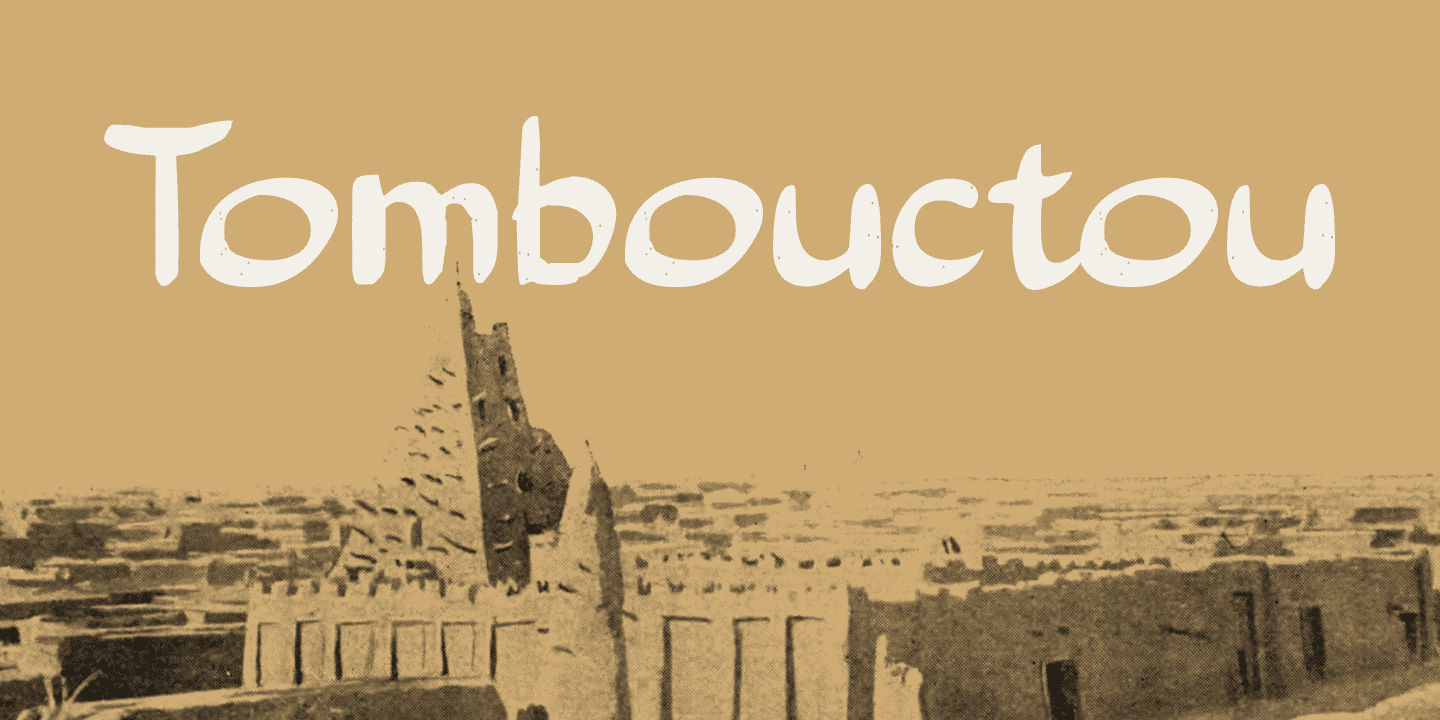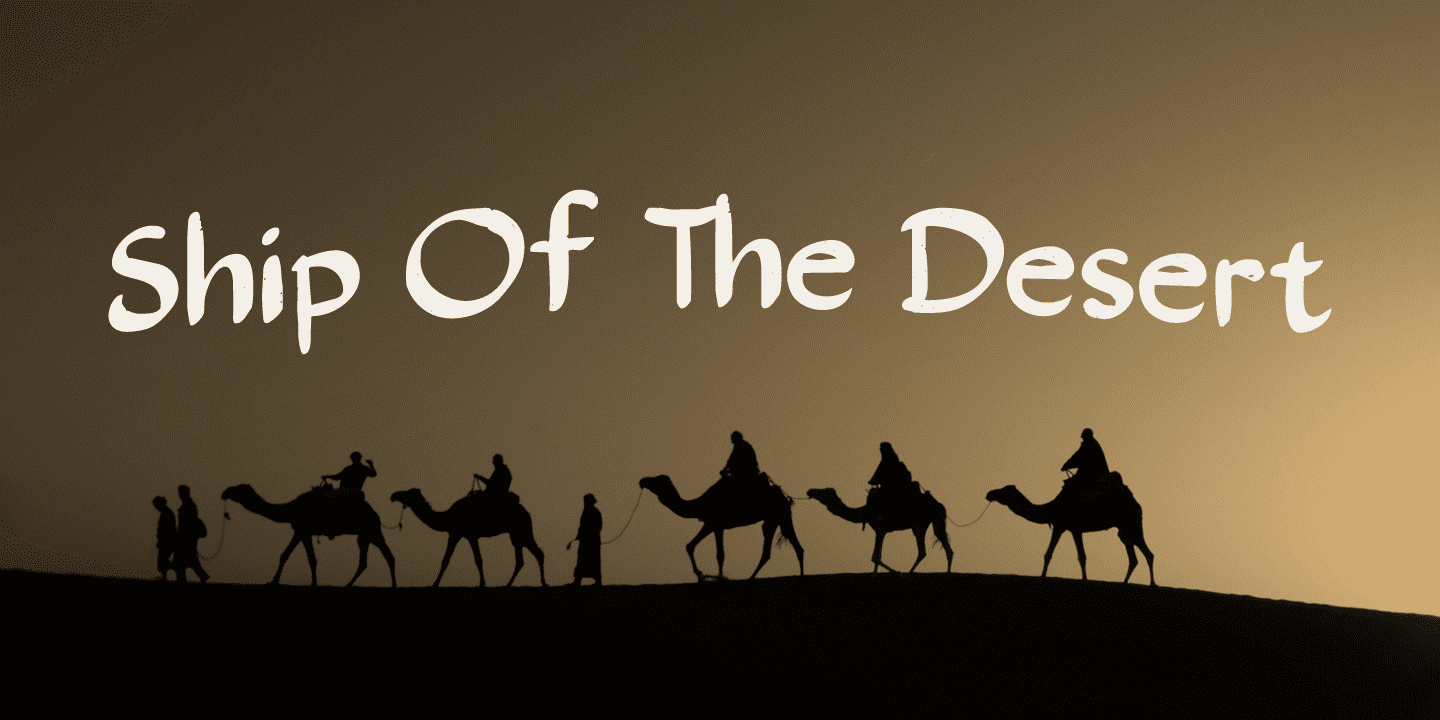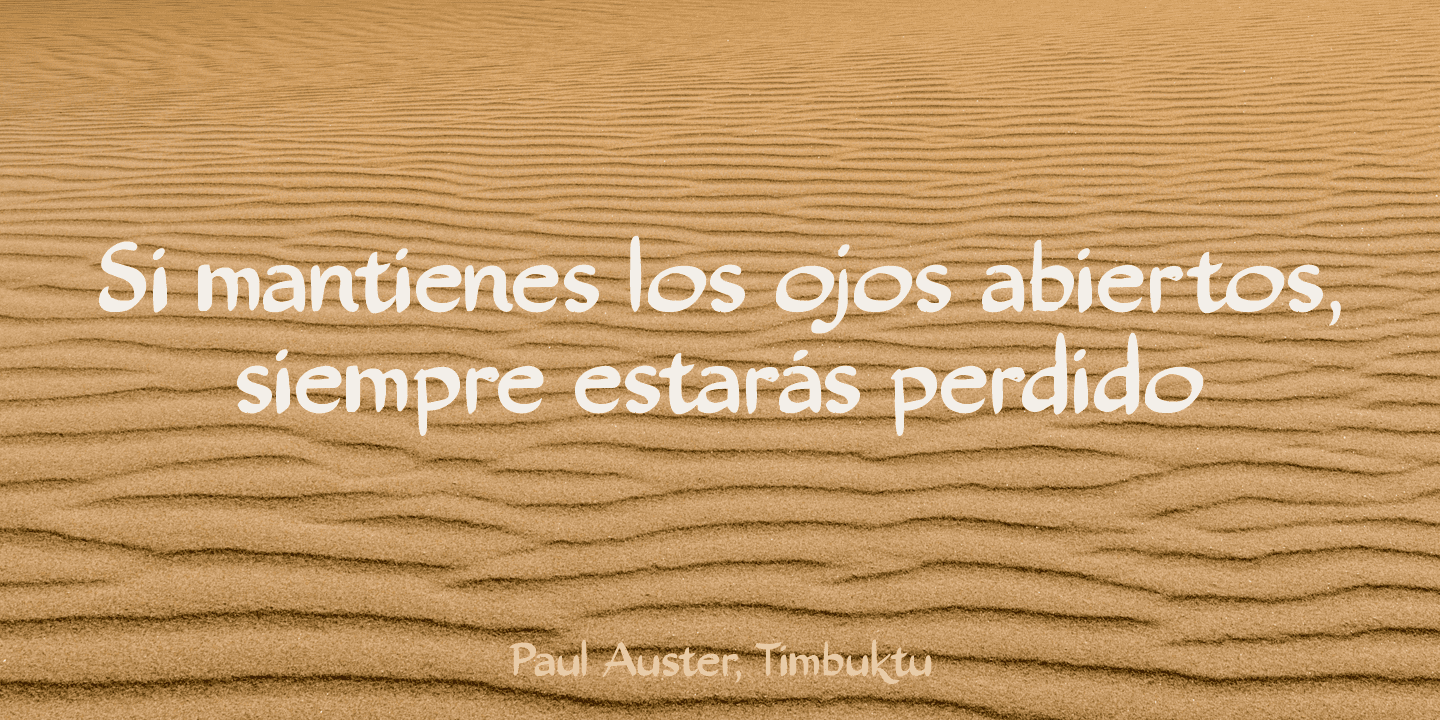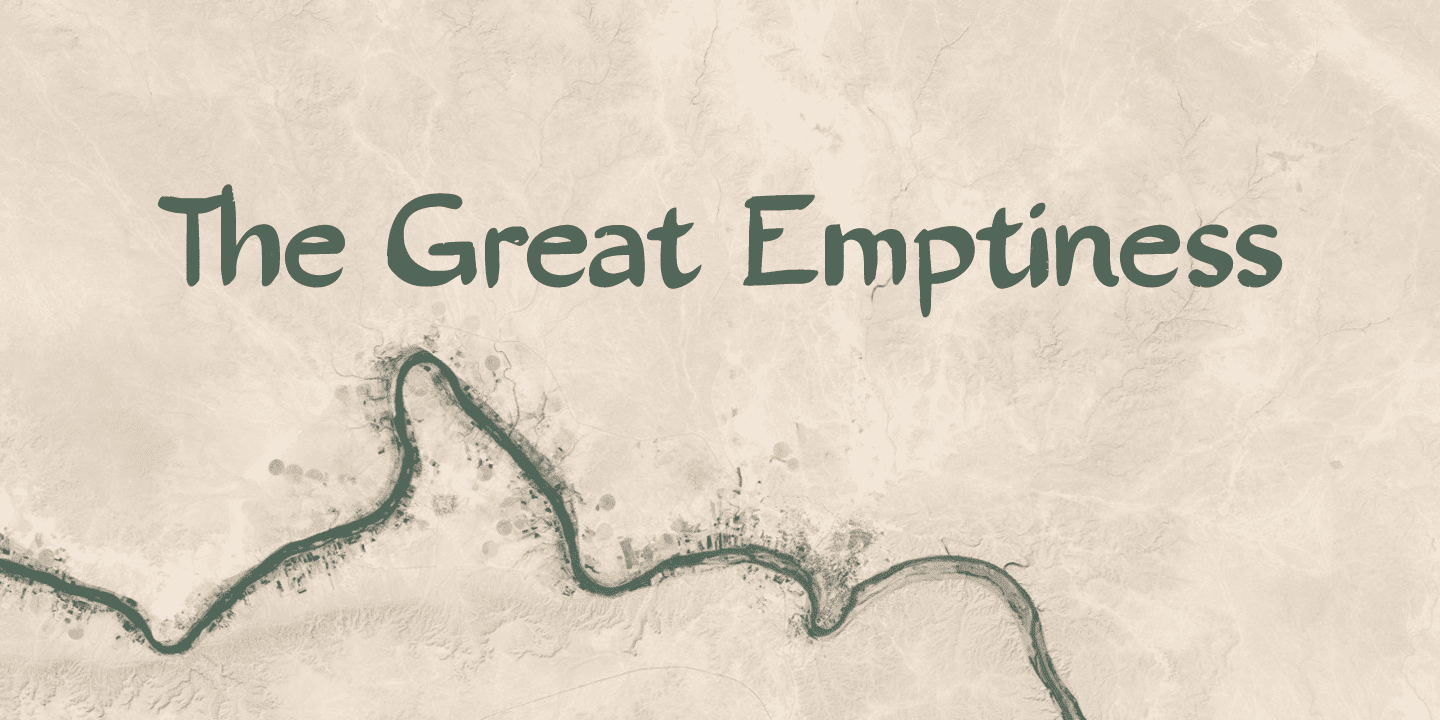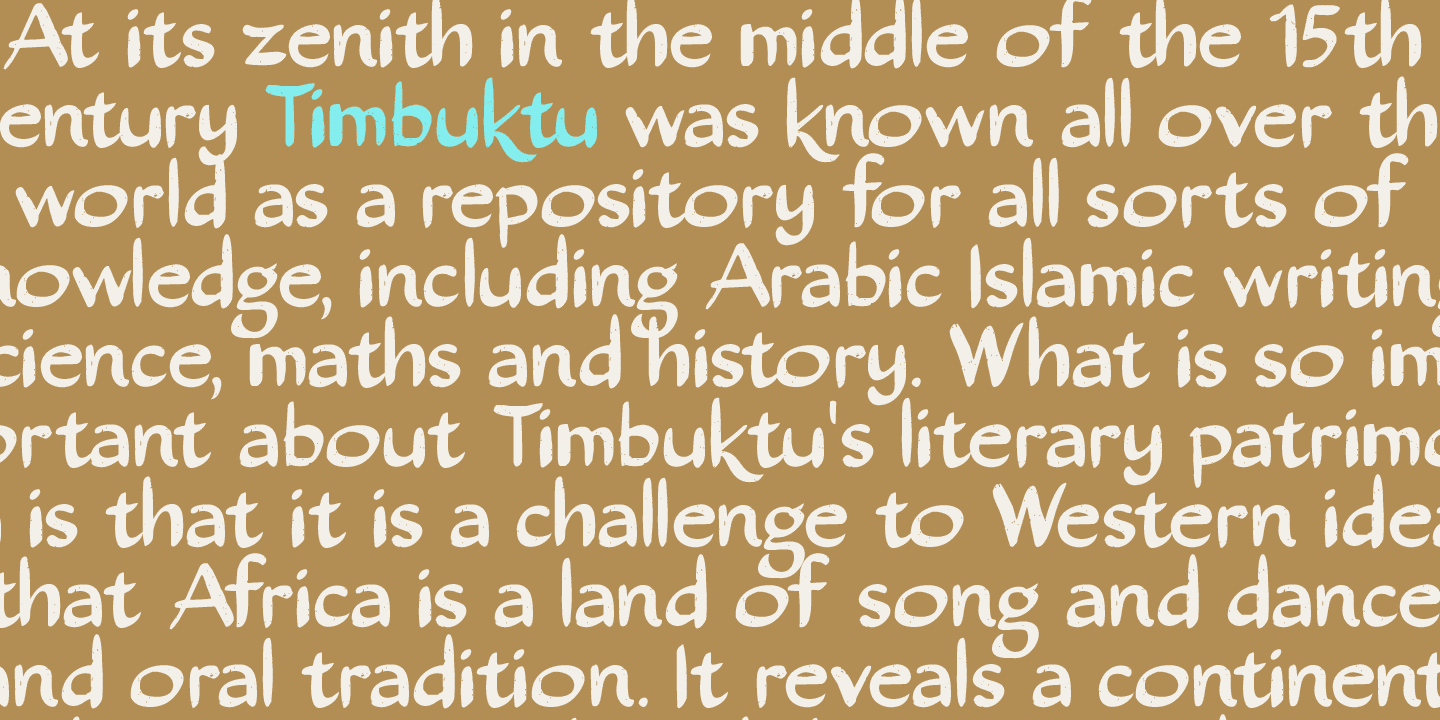
Tombouctou Family (2 fonts)
I have been to Timbuktu several times; usually arriving after a three day boat trip up the Niger river. Timbuktu is a smallish city, literally in the middle of nowhere, with a treasure trove of UNESCO listed sites.
Tombouctou font is a handmade brush font. It is nice and elegant and will give your designs an ‘oriental’ touch.